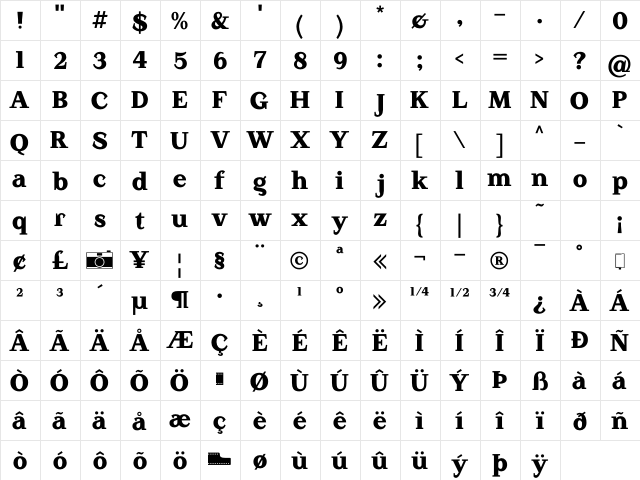
Miscasted Bold
| Foundry | Ryoichi Tsunekawa |
| Designer | Ryoichi Tsunekawa |
Design Context for Miscasted Typeface
Miscasted offers clean, dependable letterforms without strong stylistic allegiance, making it a practical choice for designers who need flexibility. The heavy weight commands attention and anchors typographic hierarchies.